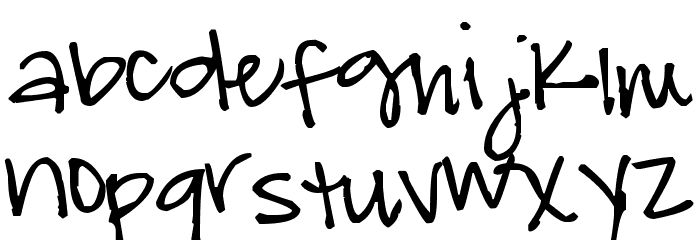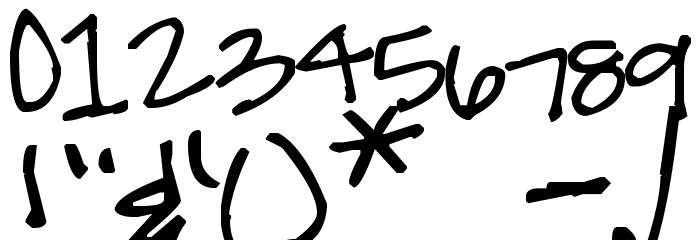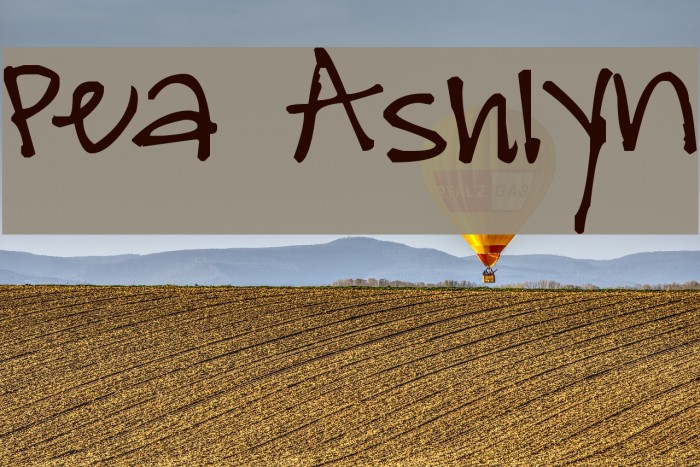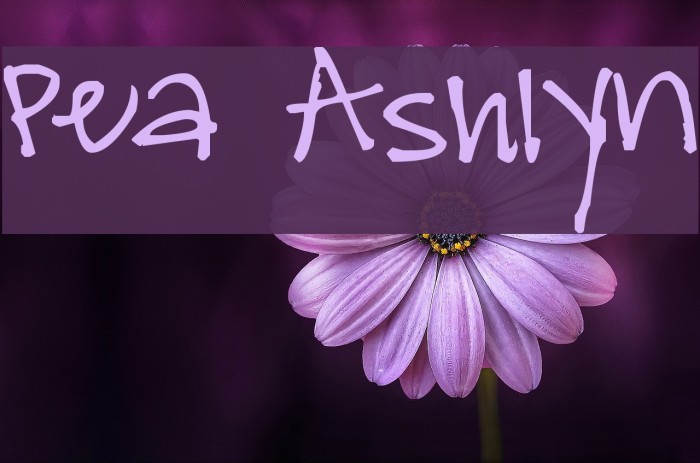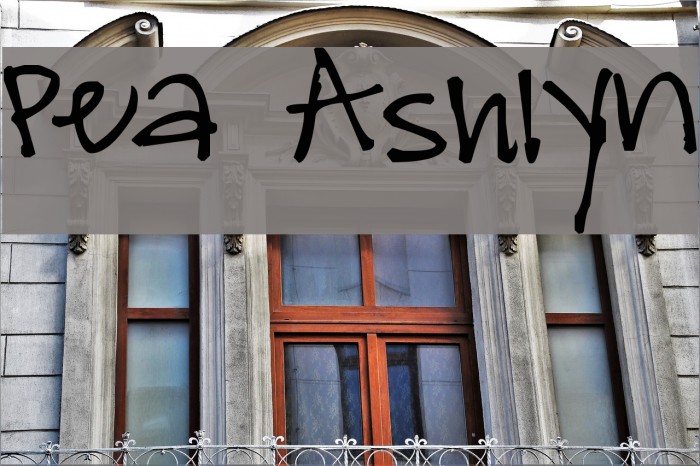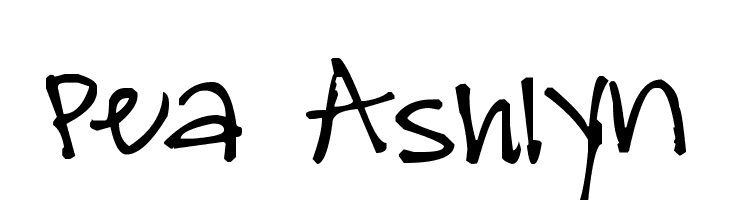
Pea Ashlyn Font
This font exhibits a playful and casual handwritten style, characterized by its irregular strokes and informal appearance. The letters are slightly slanted, giving a dynamic and energetic feel. The uppercase and lowercase letters maintain a consistent flow, while the numbers and special characters complement the overall aesthetic. The strokes are uneven, adding to the handwritten charm, and the overall impression is one of spontaneity and creativity. This font is perfect for projects that require a personal touch or a relaxed vibe.
A playful, casual handwritten font with dynamic, irregular strokes.
- Font: Pea Ashlyn
- Proposed Projects: Ideal for greeting cards, personal notes, informal invitations, and creative projects that require a personal touch.
- Overall Style: Casual, Playful
- Use Case: Logos, Headlines, Informal Text